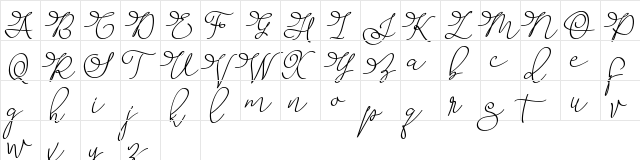
Barista Script Regular
| Designer | Aldedesign 2019 |
Design Context for Barista Script Typeface
Barista Script flows with the natural rhythm of handwritten lettering, making it ideal for designs that call for warmth and personal expression.
Font Pairing: Combine Barista Script with a simple geometric sans for maximum contrast — the tension between flowing curves and clean structure is a classic typographic pairing.
Pro Tip: Use Barista Script for short runs of text — names, titles, or taglines. Extended body copy in script faces tires the eye quickly.